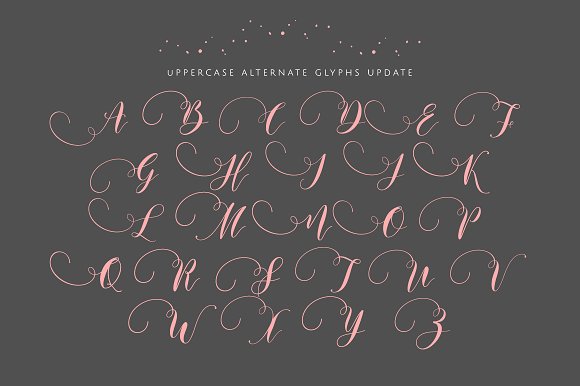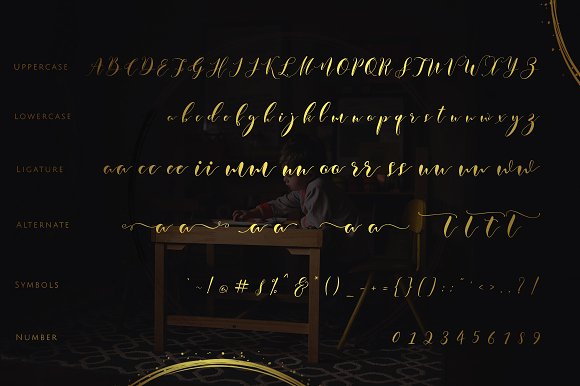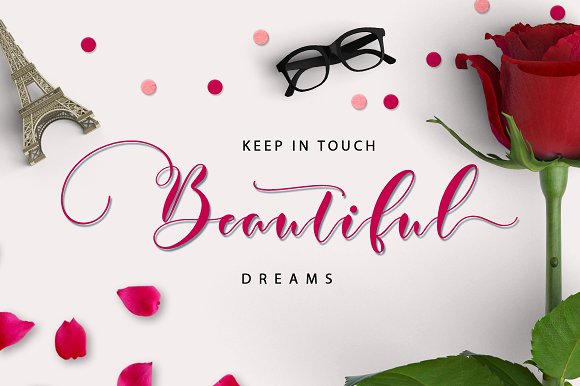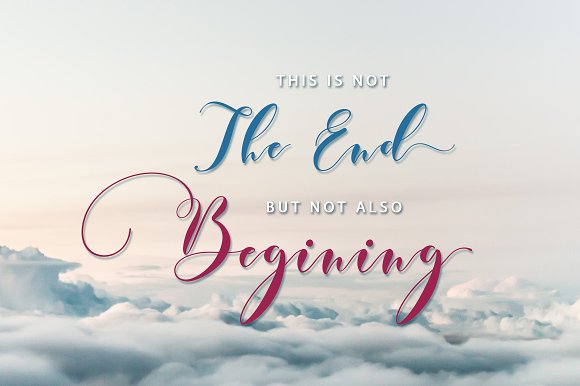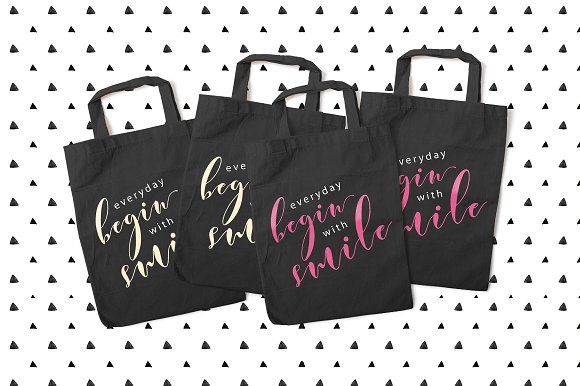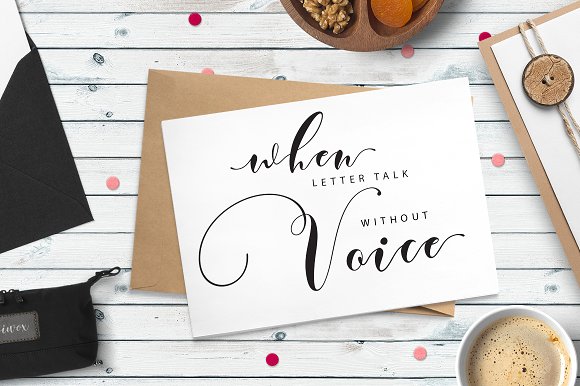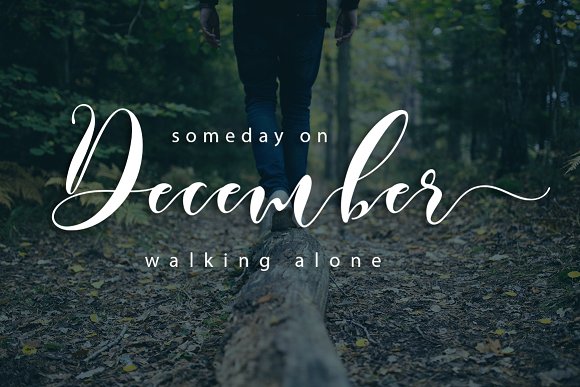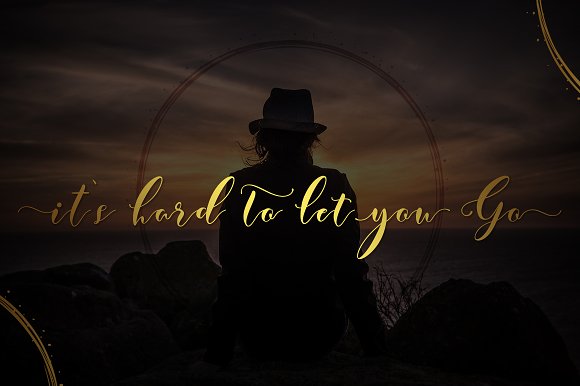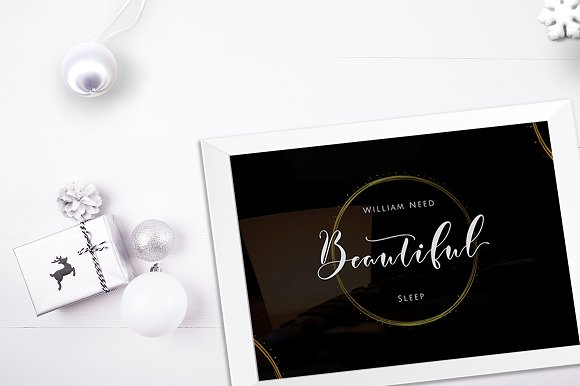
Justmine Font
About Justmine Font
Justmine is a stunning handwritten font created to enhance feminine, floral designs.  With a high contrast stroke weight and modern script design, Justmine is perfect for display or bold design intention.